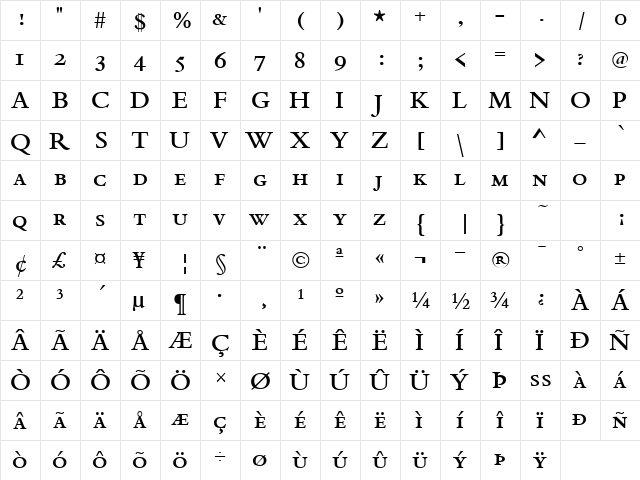
BergamoSmc Bold
Design Context for BergamoSmc Typeface
BergamoSmc takes a measured approach to typography — its balanced proportions and neutral character make it a reliable workhorse for both digital and print work. Its bold stroke weight gives it real presence on the page.